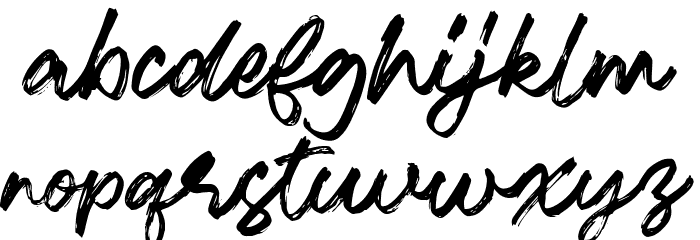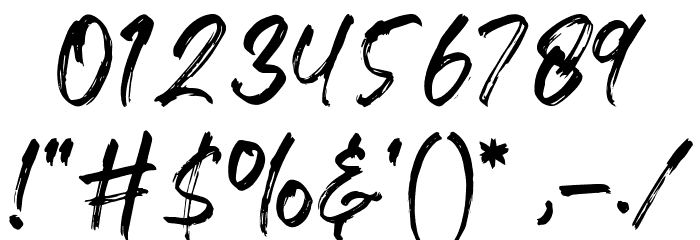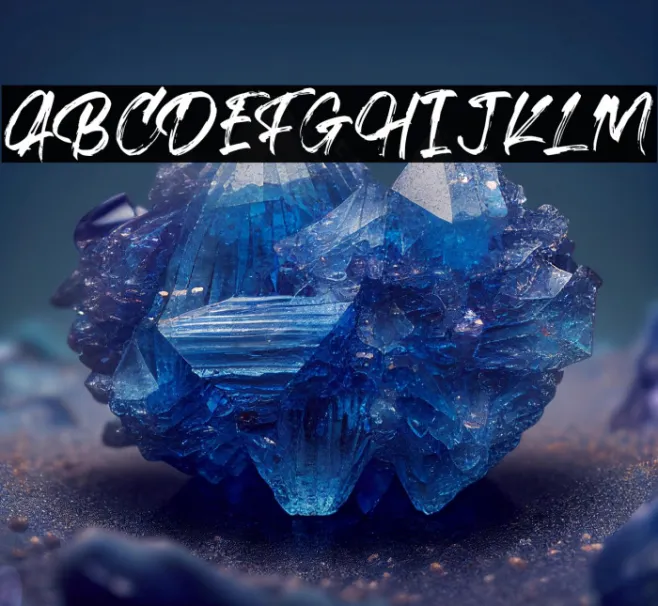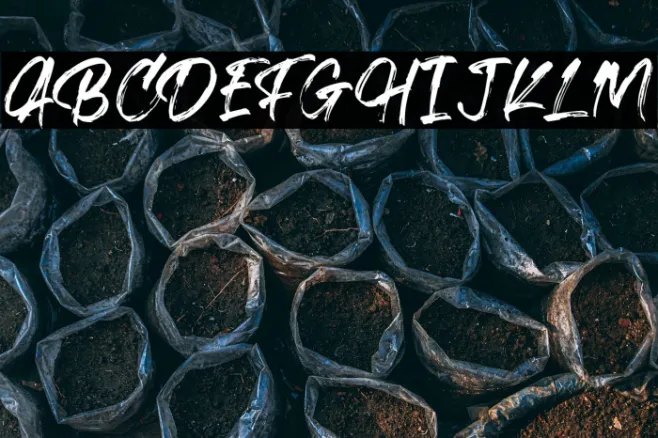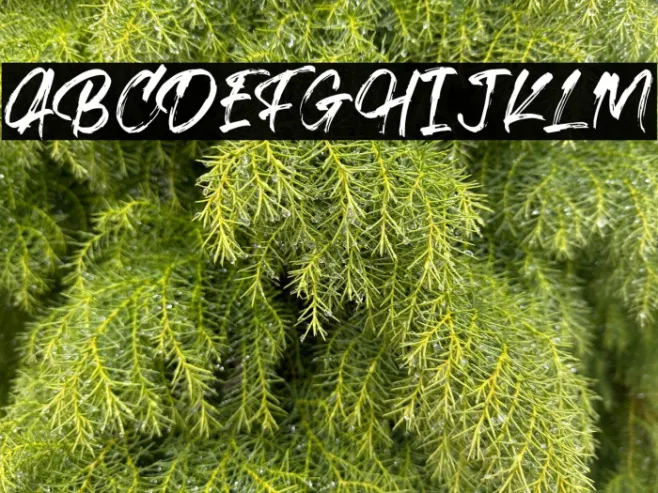
Ramez Font
This font exudes a bold, expressive style with its brush-like strokes and dynamic flow. Each character is crafted with a sense of movement, giving it a lively and energetic appearance. The uppercase letters stand tall and confident, while the lowercase letters maintain a consistent rhythm, adding to the overall fluidity. Numbers and special characters are equally expressive, maintaining the same artistic flair. The font's rough edges and varying stroke thicknesses contribute to its handcrafted feel, making it ideal for projects that require a personal touch.
A bold, brush-style font with dynamic, expressive strokes.
- Font: Ramez
- Proposed Projects: Perfect for artistic projects, branding, posters, and invitations that require a personal, handcrafted touch.
- Category: Handwritten